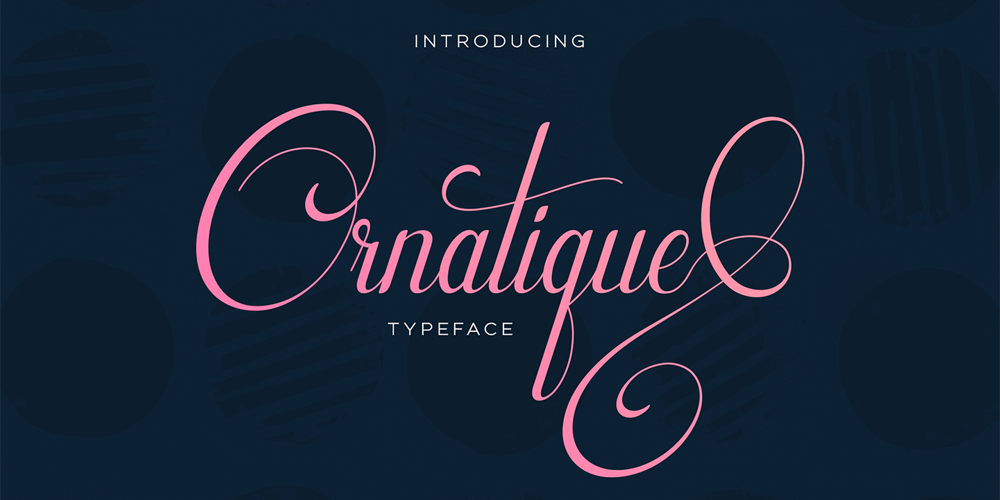
Ornatique Font Family was designed by Vladimir Fedotov, Plamen Petrov and published by VP Creative Shop. Ornatique contains 4 styles and family package options. Introducing Ornatique: Where Elegance Meets GraceDiscover the beauty of Ornatique, a stunning and feminine calligraphy typeface designed to add a touch of sophistication to any project.With its clean lines and delicate curves, Ornatique captures the essence of graceful handwriting. This versatile typeface offers four scripts to choose from: the classic Regular script for a timeless look, the Italic script for added flair and elegance, and the Alternate versions that provide even more variety and creative possibilities.But that’s not all! Ornatique is truly a global communicator, supporting a staggering 87 languages. Whether you’re designing for English, Spanish, French, or countless others, this typeface has got you covered. Embrace the power of seamless multilingual design.What sets Ornatique apart is its collection of 58 swash endings, crafted as ligatures. These intricate and decorative elements bring an extra layer of beauty and charm to your designs. From elegant flourishes to delicate swirls, each swash ending adds a touch of enchantment, making your typography truly remarkable.Whether you’re creating wedding invitations, branding materials, or simply adding a touch of elegance to your personal projects, Ornatique is the perfect choice. It combines clean lines with feminine grace, ensuring that your designs will captivate and inspire.Let your creativity soar with Ornatique and discover the magic of calligraphy that transcends language and culture. Elevate your designs and leave a lasting impression with this exquisite typeface.Embrace the beauty of Ornatique today and let your imagination flow!Language Support : Afrikaans, Albanian, Asu, Basque, Bemba, Bena, Breton, Chiga, Colognian, Cornish, Czech, Danish, Dutch, Embu, English, Estonian, Faroese, Filipino, Finnish, French, Friulian, Galician, Ganda, German, Gusi,i Hungarian, Indonesian, Irish, Italian, Jola-Fonyi, Kabuverdianu, Kalenjin, Kamba, Kikuyu, Kinyarwanda, Latvian, Lithuanian, Lower Sorbian, Luo, Luxembourgish, Luyia, Machame, Makhuwa-Meetto, Makonde, Malagasy, Maltese, Manx, Meru, Morisyen, North Ndebele, Norwegian, Bokmål, Norwegian, Nynorsk, Nyankole, Oromo, Polish, Portuguese, Quechua, Romanian, Romansh, Rombo, Rundi, Rwa, Samburu, Sango, Sangu, Scottish, Gaelic, Sena, Shambala, Shona, Slovak, Soga, Somali, Spanish, Swahili, Swedish, Swiss, German, Taita, Teso, Turkish, Upper, Sorbian, Uzbek (Latin), Volapük, Vunjo, Walser, Welsh, Western Frisian, ZuluHow to access flourish ending?Just type from “”aa01″” to “”aa58″” at the end of your word :)How to access alternate glyphs?To access alternate glyphs in Adobe InDesign or Illustrator, choose Window Type & Tables GlyphsIn Photoshop, choose Window Glyphs. In the panel that opens, click the Show menu and choose Alternates for Selection. Double-click an alternate’s thumbnail to swap them out.Mock ups and backgrounds used are not included.Thank you! Enjoy!